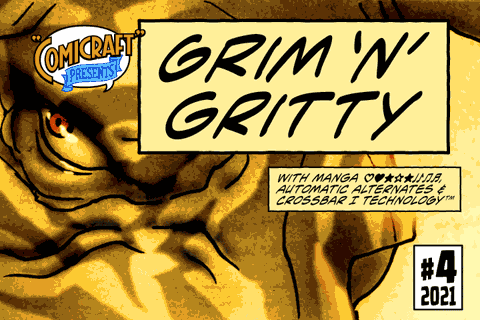
Grim 'n' Gritty
Grim 'n' Gritty font
CAPTION: Thought Balloons. No use for them any more.
CAPTION: You can’t be taken seriously when your thoughts are floating above your head in cute, puffy clouds.
CAPTION: Doesn’t look good.
CAPTION: When the streets are extended gutters and the gutters are full of blood, a thought bubble just isn’t noir enough, is it?
CAPTION: It’s gotta be GRIM.
CAPTION: It’s gotta be GRITTY.
CAPTION: Let’s face it...
CAPTION: It’s gotta be GRIM’N’GRITTY.
CAPTION: In Italic and Bold Italic.
Also Regular and Bold. But I've little use for them either.
Talk is cheap.
• Four weights with alternate uppercase alphabets
Plus: Automatic alternates, Manga characters & Crossbar I Technology™